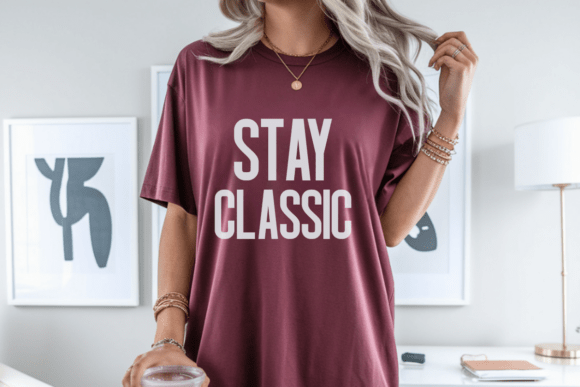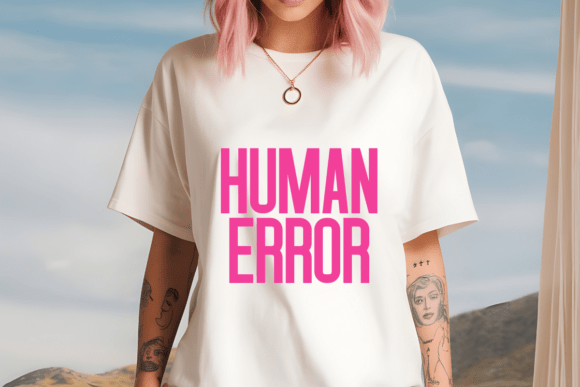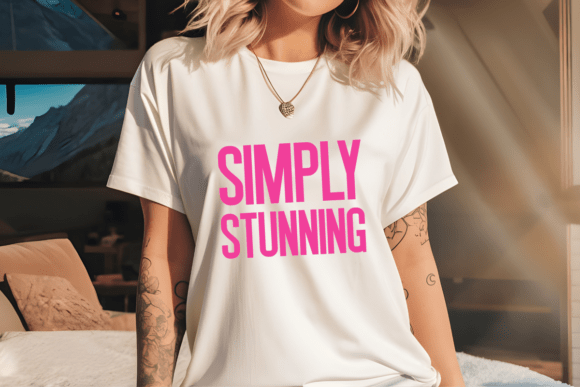
The Ultimate Guide to Funny Cute Font: Adding a Dash of Whimsy to Your Designs
I’ll never forget the time I was working on a children’s party invitation project, and my client asked for a font that was “fun, playful, and not too serious.” I scoured the internet, tried out dozens of fonts, but nothing seemed to fit the bill. That was until I stumbled upon Funny Cute Font. It was like a breath of fresh air – bold, energetic, and full of personality. In this article, I’ll share my experience with Funny Cute Font, its features, and how to make the most of it in your designs.
An Honest Review of Funny Cute Font
- ✨ Playful and vibrant retro style: Funny Cute Font has a unique, condensed sans serif look that’s perfect for adding a touch of whimsy to your designs.
- ✅ Support for all English characters: You can use it for projects that require a wide range of characters, from simple text to more complex phrases.
- ✅ Standard punctuation glyphs included: No need to worry about finding alternative punctuation marks – it’s all taken care of.
- ✅ Perfect for children’s merchandise, branding, and apparel design: The font’s lighthearted style makes it ideal for projects that need to appeal to a younger audience.
While Funny Cute Font is an excellent choice for many projects, there are a few things to keep in mind:
- ⚠️ Limited use in formal or professional contexts: Due to its playful nature, Funny Cute Font might not be the best fit for projects that require a more formal tone.
- 🤔 May not work well in small sizes: As with many condensed fonts, Funny Cute Font can become difficult to read when scaled down.
The Backstory of Funny Cute Font
Funny Cute Font was designed with one goal in mind: to bring a smile to people’s faces. Its creator, a passionate typographer, drew inspiration from retro children’s books, playful street art, and the joy of simplicity. The result is a font that’s equal parts fun, energetic, and charming.
Q: Is Funny Cute Font suitable for digital and print projects?
A: Absolutely! Funny Cute Font works well in both digital and print environments, from social media graphics to business cards and flyers.
Q: Can I use Funny Cute Font in craft projects, like scrapbooking or card making?
A: Yes, Funny Cute Font is a great choice for craft projects, adding a playful touch to your scrapbooking, card making, or other paper crafts.